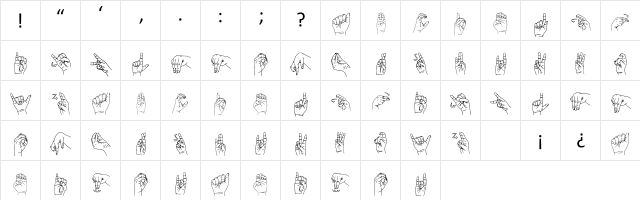
Lengua Senas Colombiana Regular
Design Context for Lengua Senas Colombiana Typeface
Lengua Senas Colombiana is a composed and adaptable typeface that performs quietly and consistently across a wide range of design contexts.